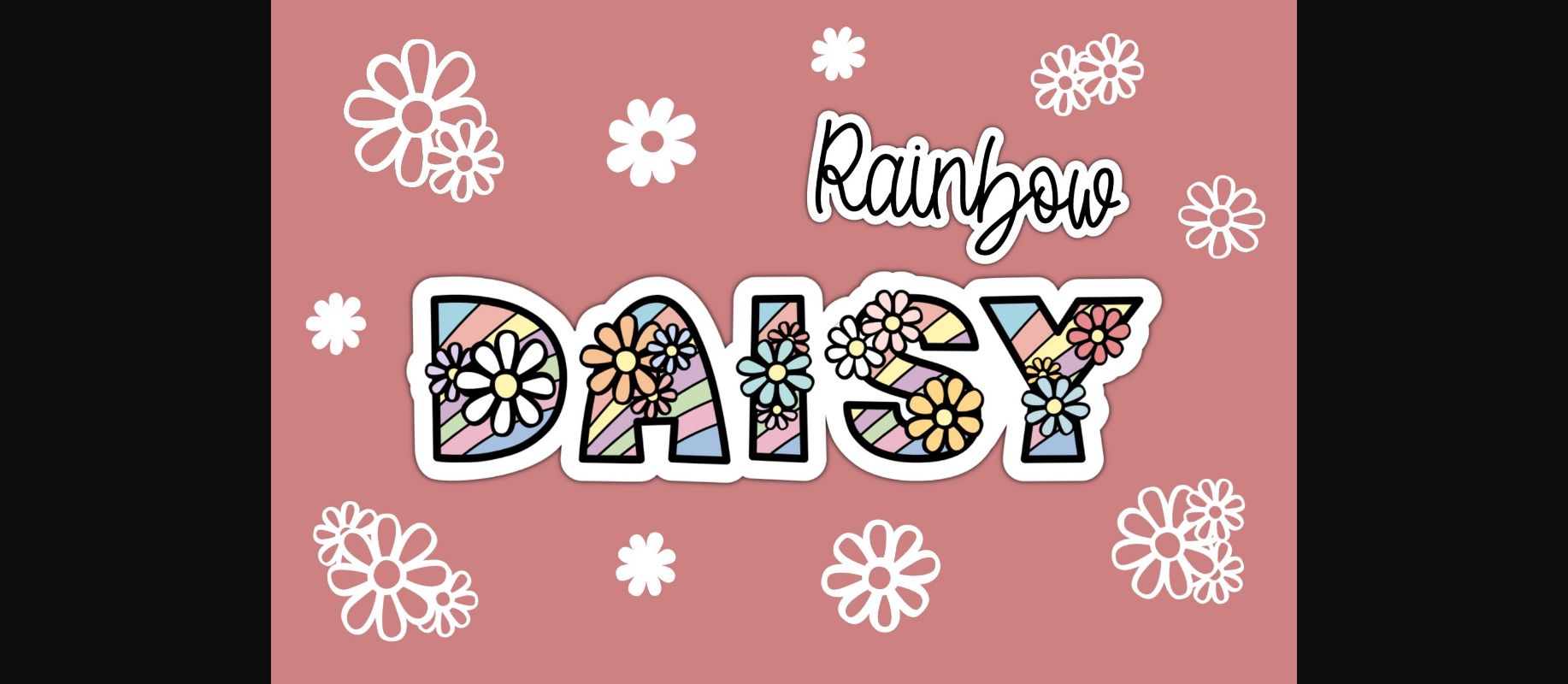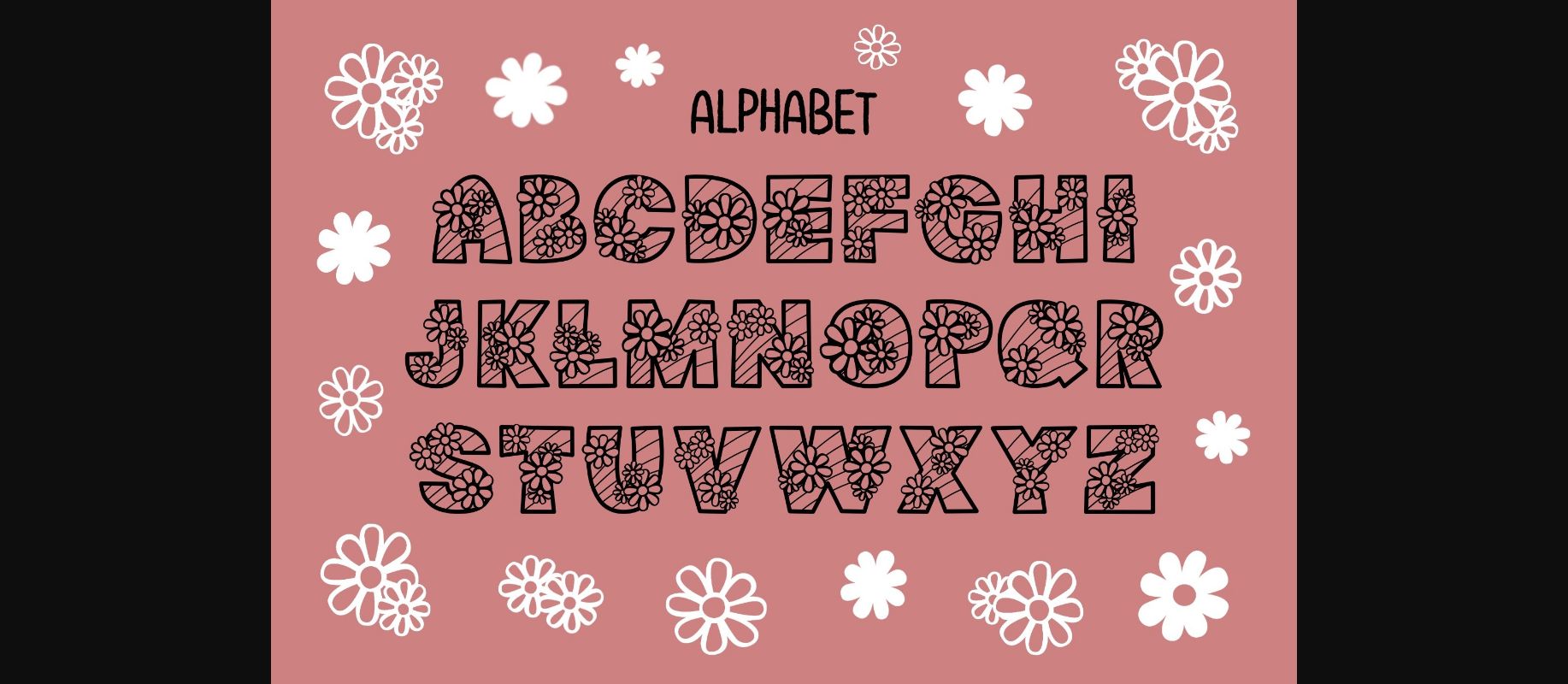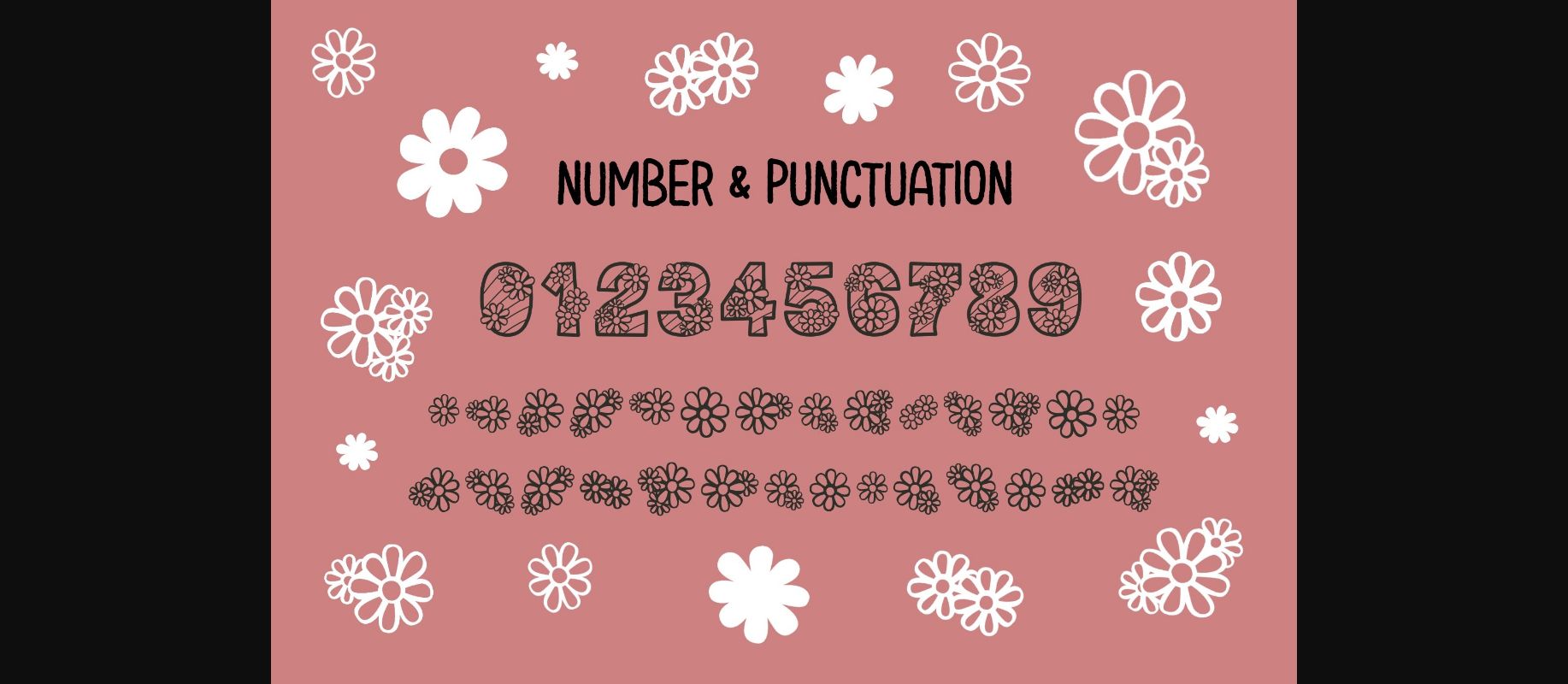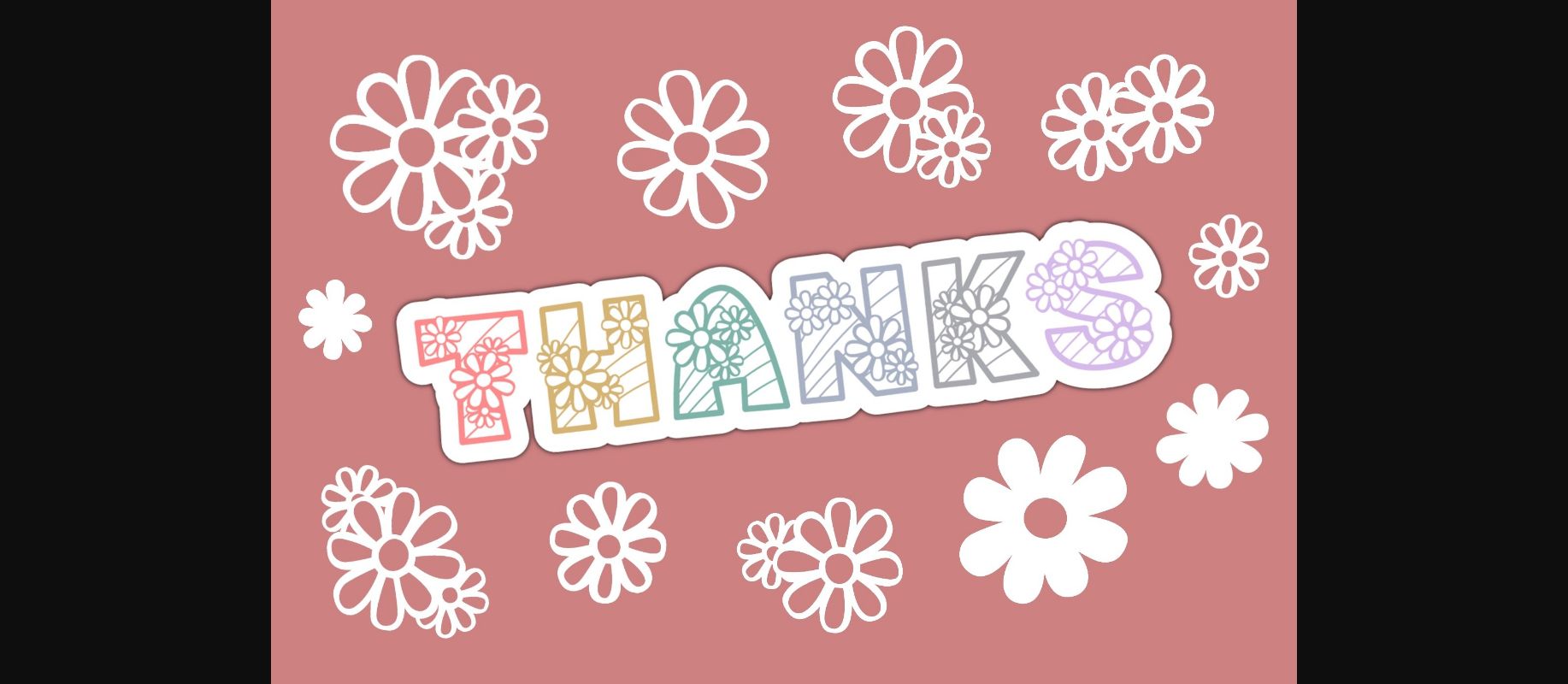
Daisy Rainbow Font
Daisy Rainbow is a lovely decorative font. This font is the perfect fit for all of your logos, branding, social media, crafty DIY projects, and much more!